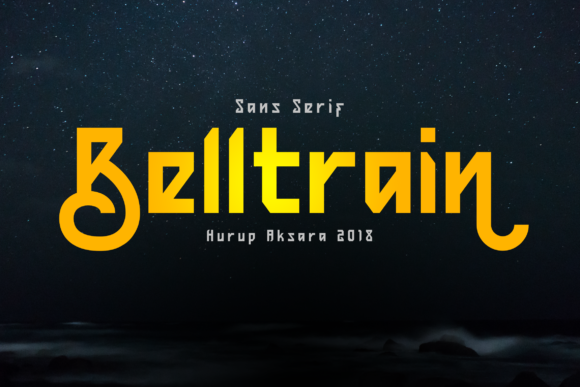
The Belltrain Font: A Retro-Chic Sans Serif for Creative Projects
I’ll never forget the design project that led me to discover the Belltrain font. I was working on a branding project for a trendy new cafe, and I needed a font that would evoke a sense of nostalgia and playfulness. After hours of scouring font websites and trying out different options, I stumbled upon Belltrain – and it was love at first sight! 💕
The Belltrain font has a strong retro and vintage style with a touch of eastern culture, making it perfect for designers, crafters, and creative hobbyists looking to add a unique flair to their projects.
An Honest Review of Belltrain Font
What I Love About Belltrain Font
- ✨ Unique blend of retro and vintage styles with an eastern twist
- ✨ Extensive character set, including OpenType features and glyphs
- ✅ Works well for both digital and print projects
While Belltrain is an amazing font, there are a few things to keep in mind: 🤔
- ⚠️ Limited availability of stylistic alternates, but still offers a range of OpenType features
The Designer Inspiration Behind Belltrain
The Belltrain font was inspired by the designer’s love of vintage travel posters and eastern cultural motifs. The font’s unique blend of retro and modern styles makes it perfect for designers looking to add a touch of nostalgia to their projects.
Q: What type of projects is Belltrain best suited for?
A: Belltrain is versatile and can be used for a wide range of projects, from branding and advertising to packaging and web design.
Q: Does Belltrain support OpenType features?
A: Yes, Belltrain supports OpenType features, including ligatures, stylistic alternates, and glyphs.